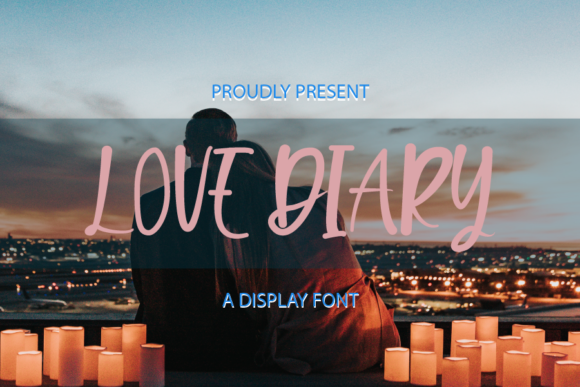
Journey into the World of Love Diary Font: Where Elegance Meets Charm
In a world saturated with digital monotony, there's a font that stands out as a beacon of creativity and allure—Love Diary Font. This enchanting script font, a creation of the talented merge354, is a testament to the power of combining timeless elegance with modern aesthetics. Its delicate strokes and beautiful letterforms evoke a sense of nostalgia, making it the perfect choice for creating designs that resonate with the heart.
Unleash Your Inner Artist: Love Diary Font for Logos and Branding
Love Diary Font isn't just a font; it's a tool that empowers you to transform your creative visions into tangible realities. Whether you're a seasoned designer or just starting your journey, this font will elevate your logos and branding endeavors to new heights. Its inherent charm and sophistication will add a touch of distinction to your creations, leaving a lasting impression on your audience.
Create Quotes That Speak to the Soul: Love Diary Font for Emotional Expression
In a world where words often fail to convey the depth of our emotions, Love Diary Font emerges as a powerful medium for expressing the inexpressible. Its graceful curves and intricate details lend an air of authenticity to your quotes, allowing them to transcend mere words and become heartfelt messages that resonate with your readers. Share your thoughts, feelings, and aspirations with the world, knowing that Love Diary Font will do justice to the intensity of your emotions.
Discover the Magic of Handwritten Charm: Love Diary Font for Personal Projects
Love Diary Font isn't just for professional designers; it's also a perfect choice for personal projects that demand a touch of elegance and creativity. Create stunning invitations for special occasions, design heartfelt greeting cards, or simply add a personal touch to your everyday writing. With Love Diary Font, you have the power to transform the mundane into the extraordinary, leaving a lasting impression on those who matter most.